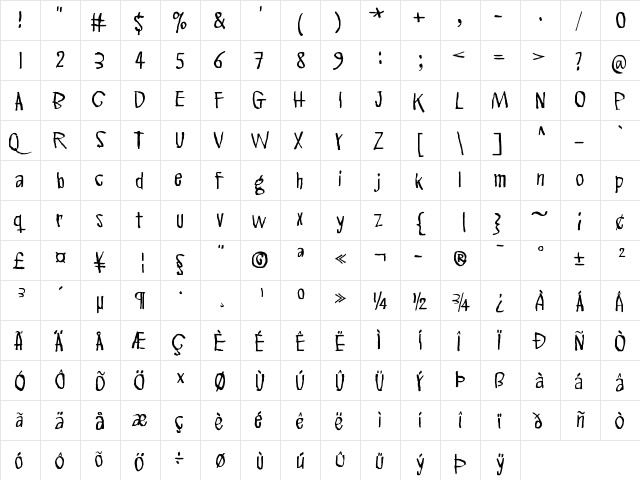
Pink Kangaroo Regular
Design Context for Pink Kangaroo Typeface
Pink Kangaroo is a composed and adaptable typeface that performs quietly and consistently across a wide range of design contexts.